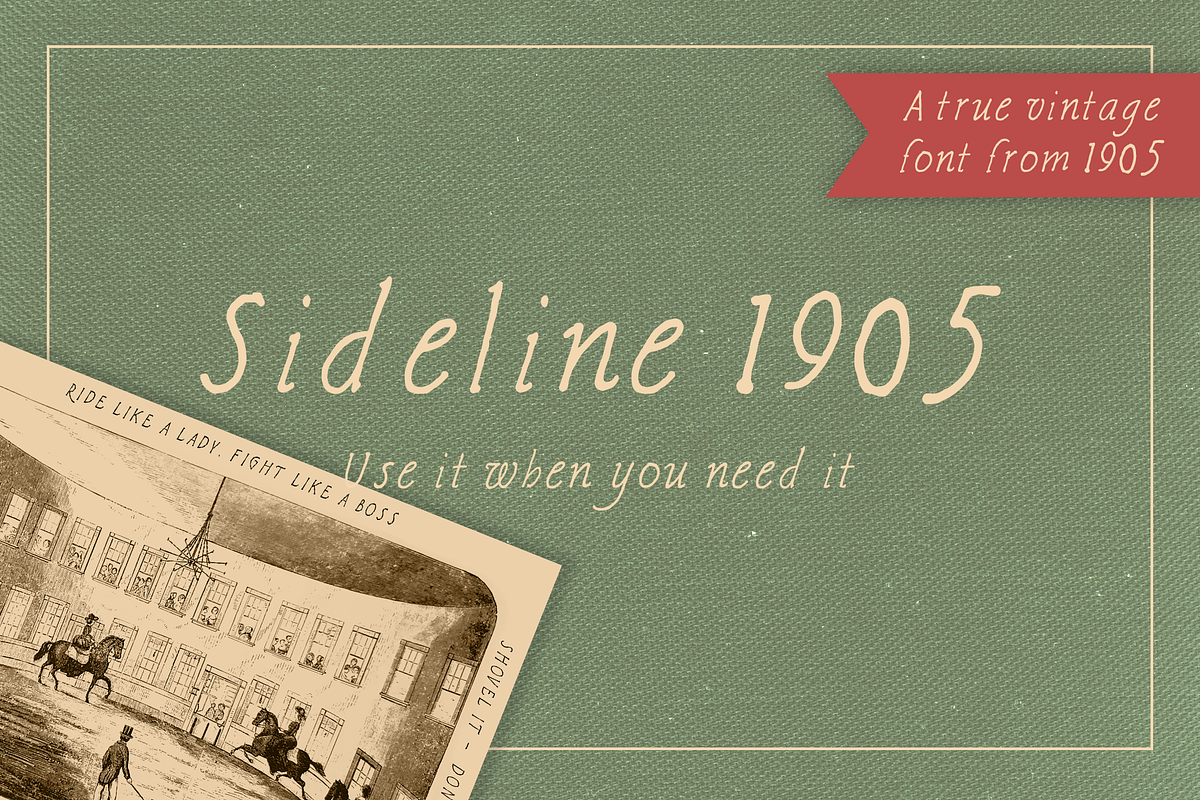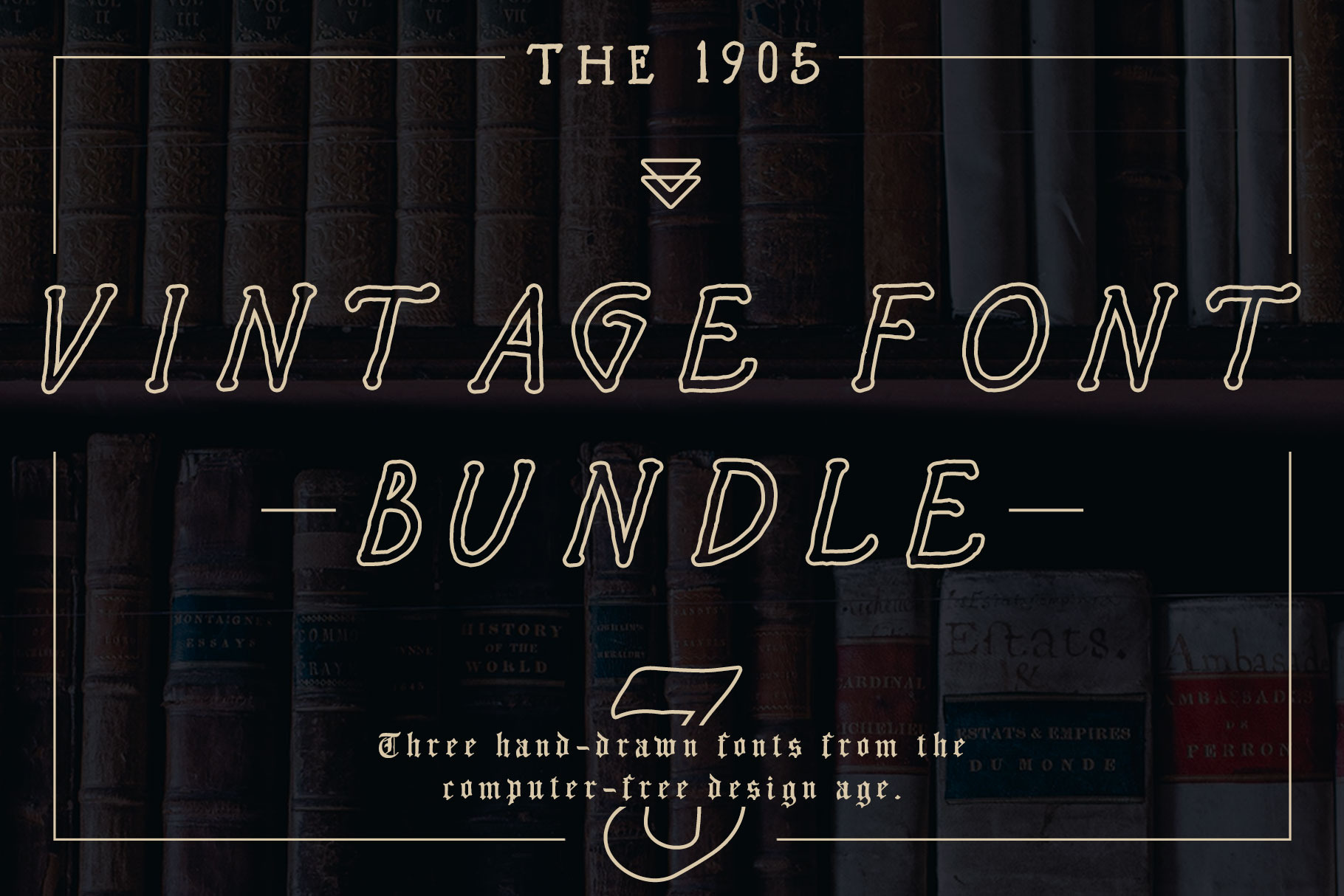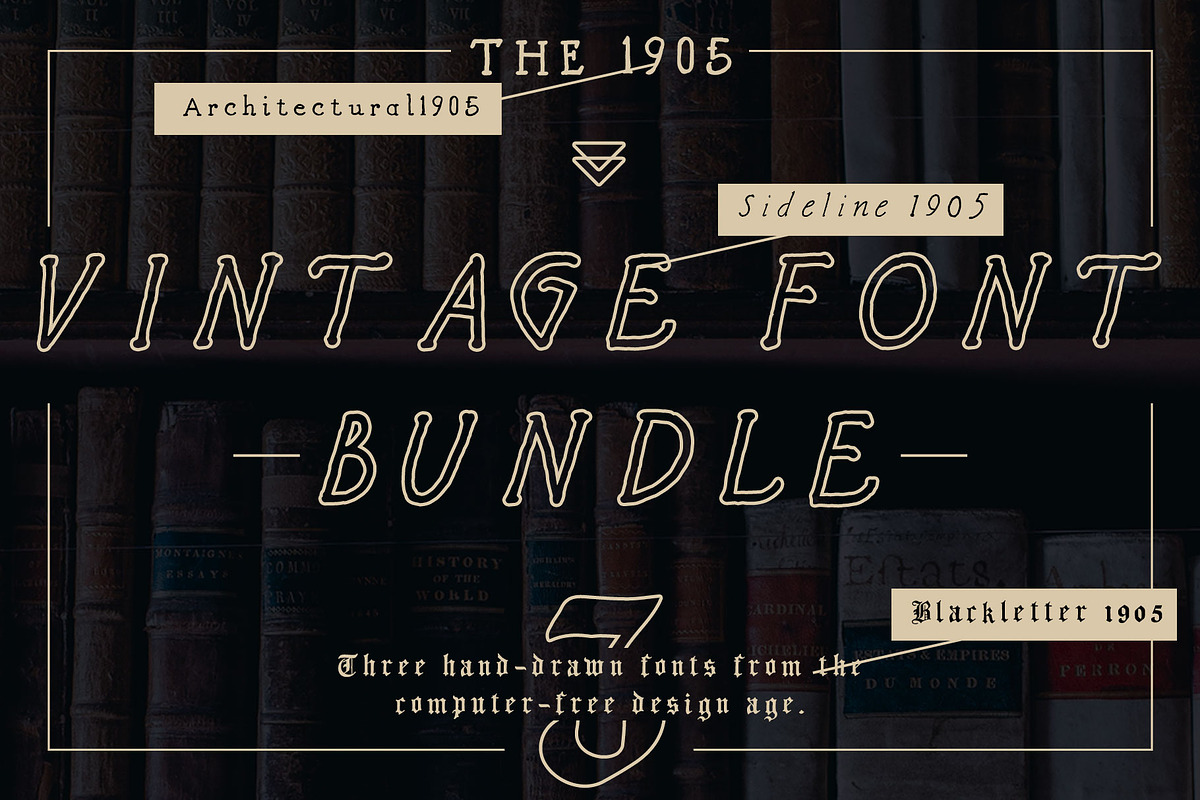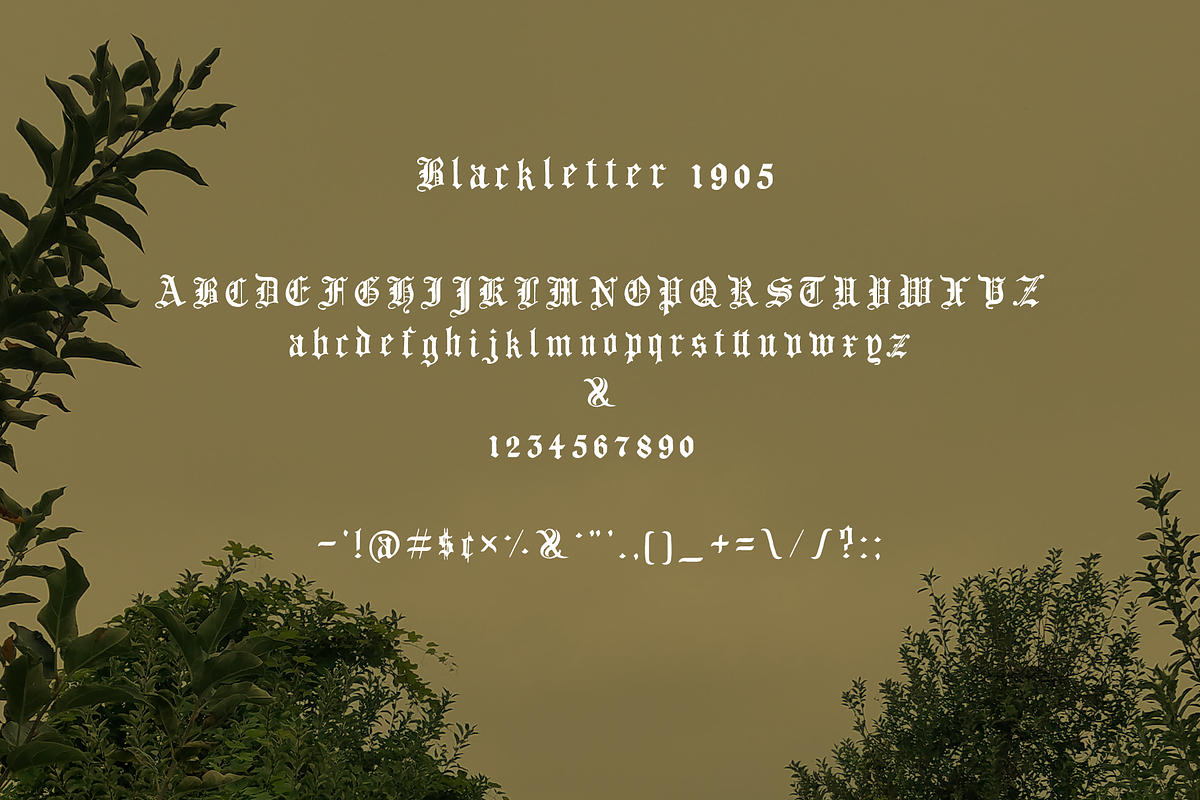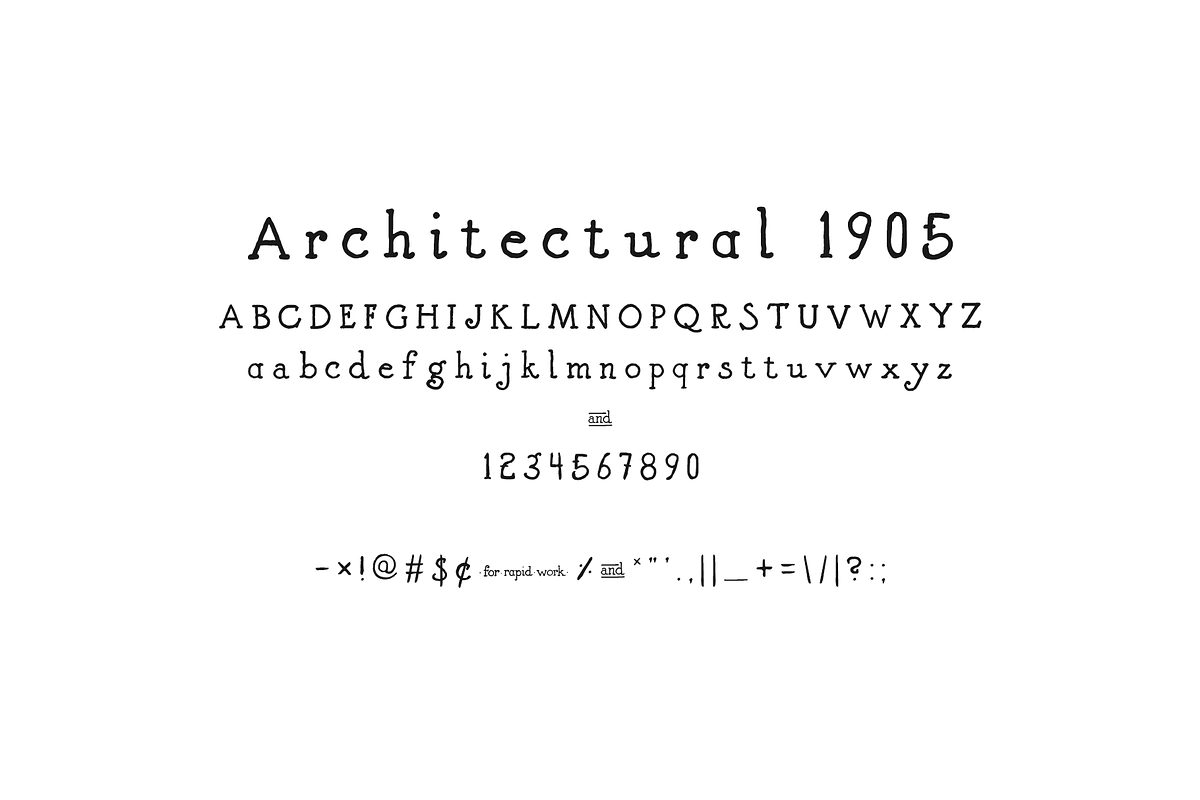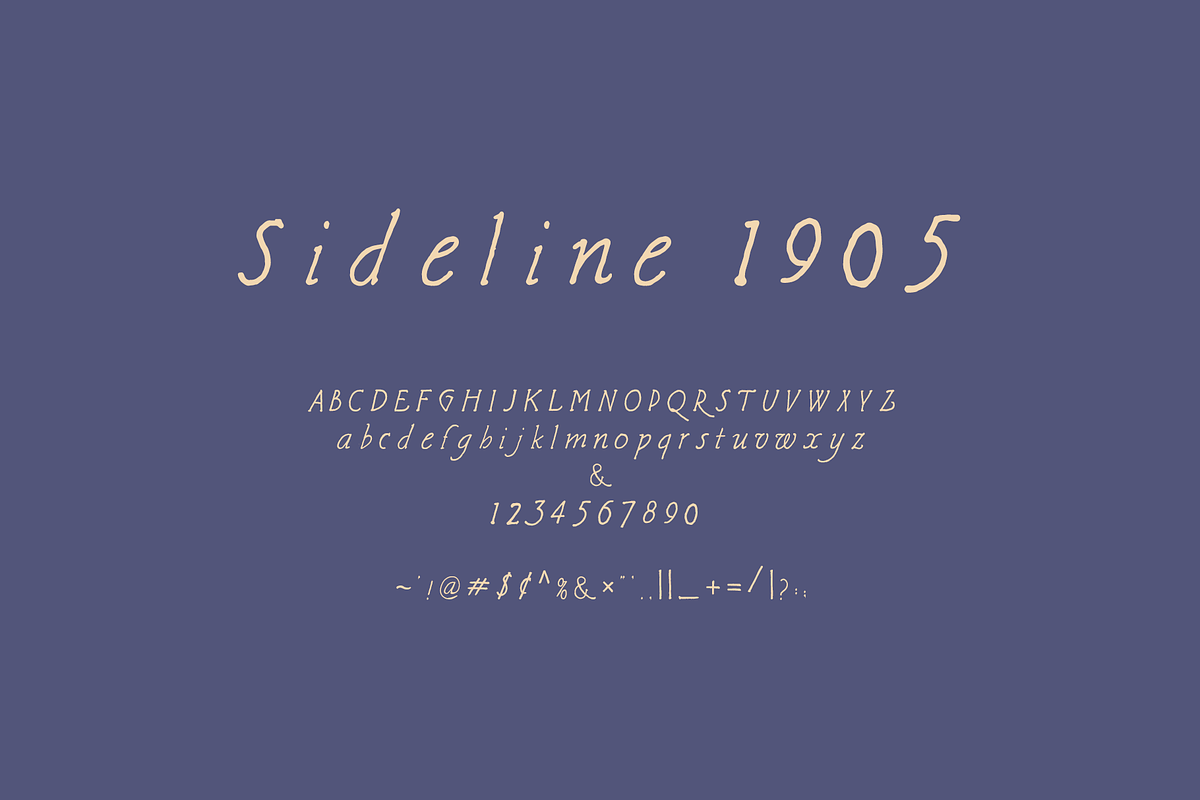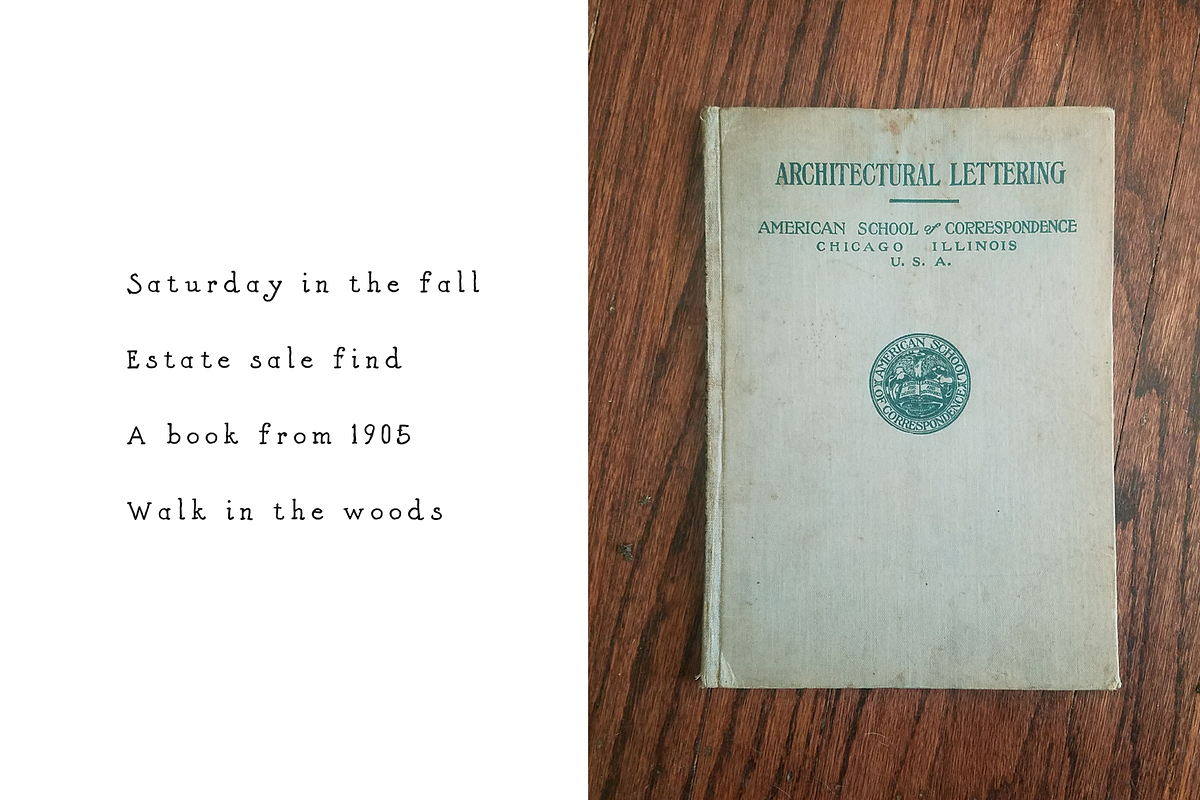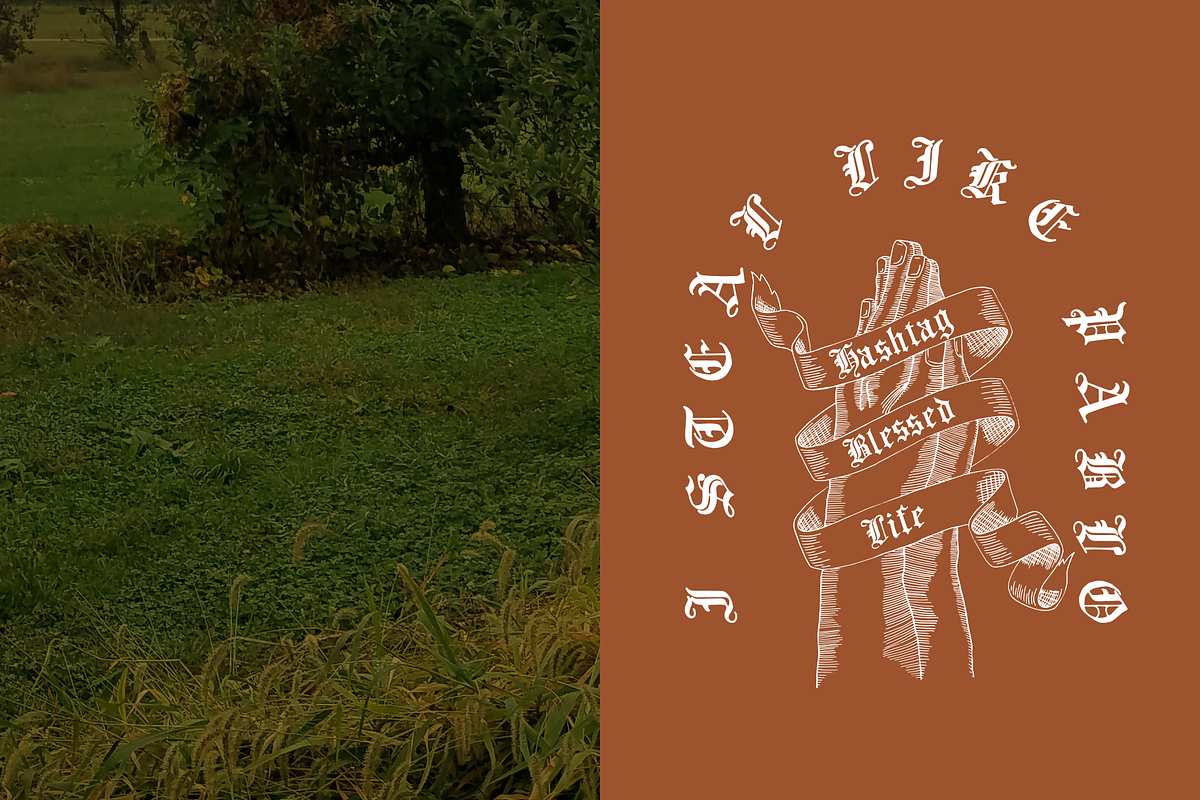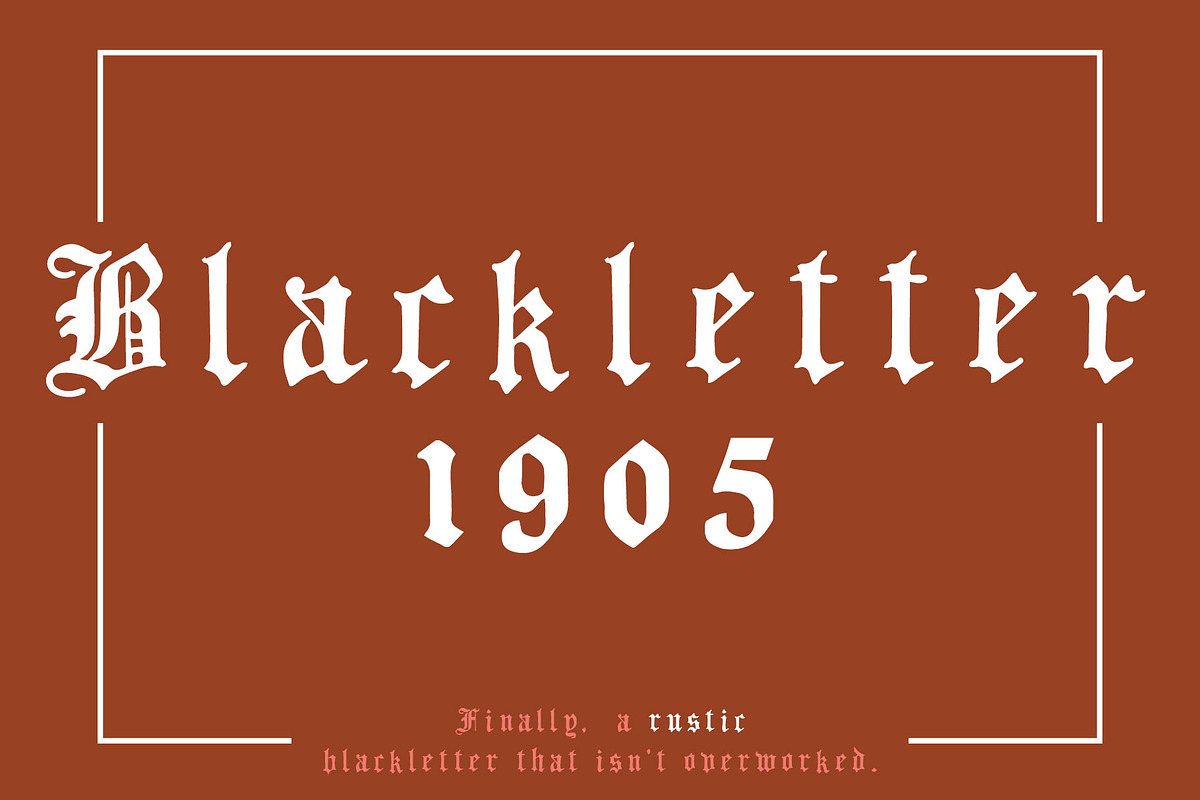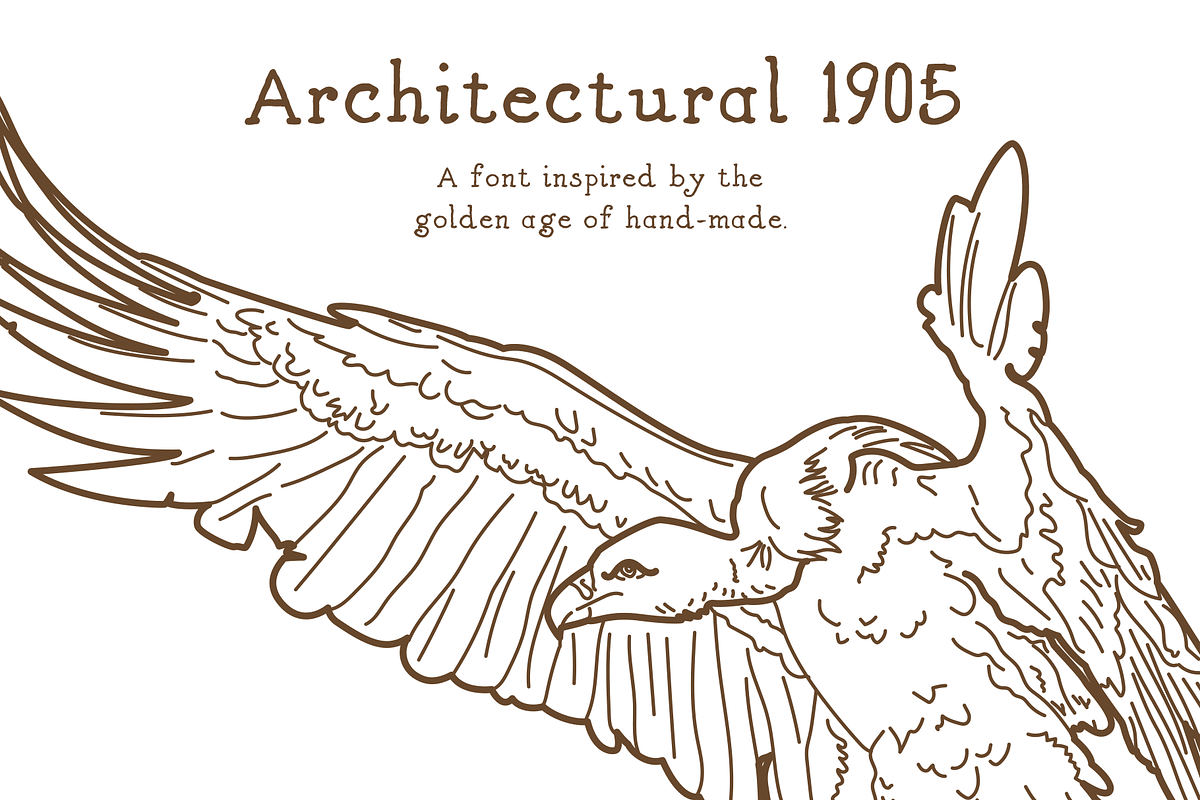
Vintage font bundle - hand lettered
Perfect for your heritage brand.
This vintage font bundle includes three of my most popular fonts, purchase now and you'll get any updates to my 1905 font collection!
These fonts were inspired by an estate sale find: a dusty, old correspondence course book on architectural lettering from 1905, Chicago. Imagine the eager wait for the mailman to bring the book, taking a walk to the general store to purchase pens, fresh paper and ink, looking forward to learning a trade that will bring a livable wage.